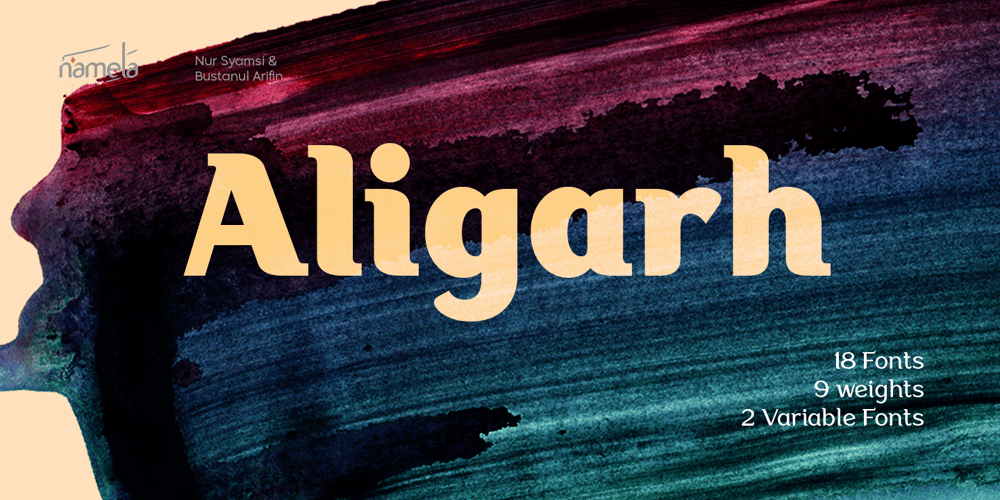
Aligarh
Aligarh font
Aligarh Font Family was designed by Nur Syamsi, Bustanul Arifin and published by NamelaType. Aligarh contains 20 styles and family package options. Aligarh is a semi-slab serif font formed with a smooth rounded bracket whose edges end with unique shapes, an exploration of combining unique styles in a typefaces. Designed to be used in a variety of media both print and digital media. 18 fonts built from 9 sizes and supported by open types.